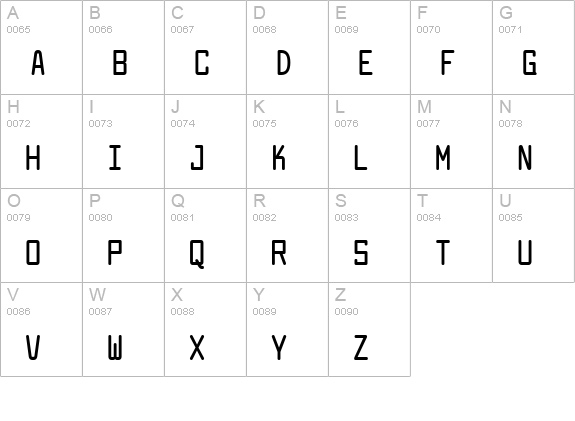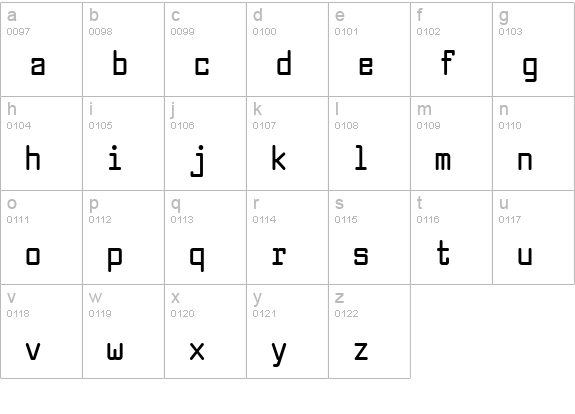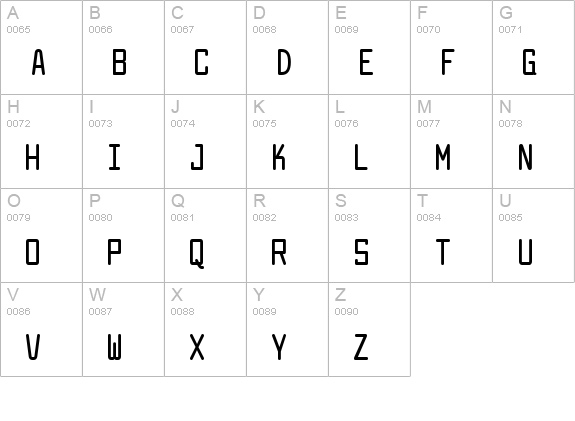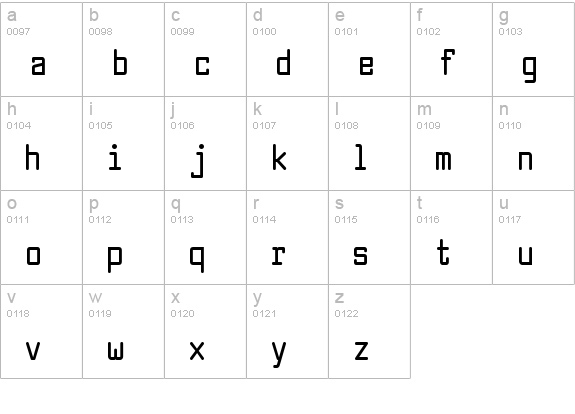
Larabiefont Condensed Bold is a strong, high-contrast, condensed-width variant in the Larabiefont typeface family \xE2\x80\x94 well suited to headlines, attention-grabbing titles, and strong calls-to-action.
Larabiefont Condensed Bold is a striking and bold font that exudes power, strength, and modernity. Its condensed design makes it perfect for headers, titles, and other prominent text elements that need to make a bold statement. This font is ideal for projects that require a strong and impactful visual presence. What sets Larabiefont Condensed Bold apart is not only its bold and condensed style, but also the fact that it is available for free download at FontsMarket.com. This means that you can easily access and use this font for your personal and commercial projects without any cost. With Larabiefont Condensed Bold, you can elevate your designs and make a lasting impression without breaking the bank. Download it today and add a touch of boldness to your projects!